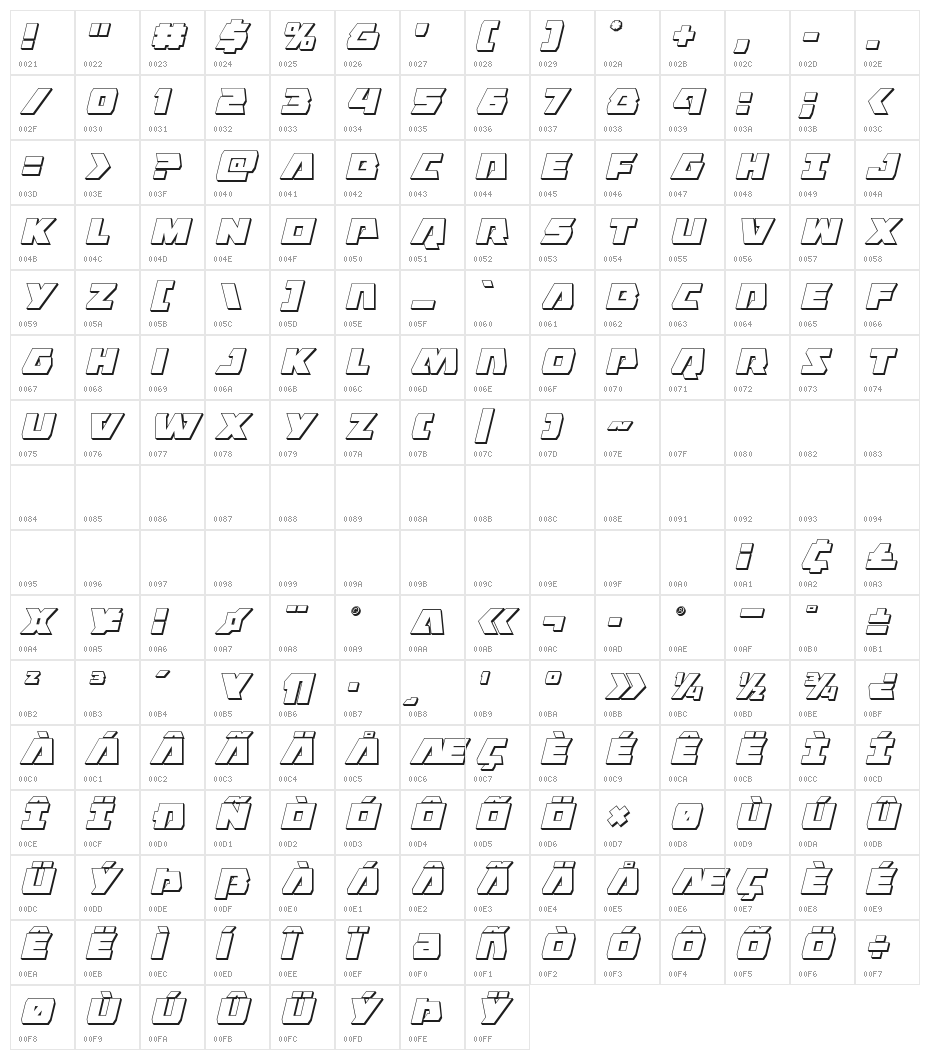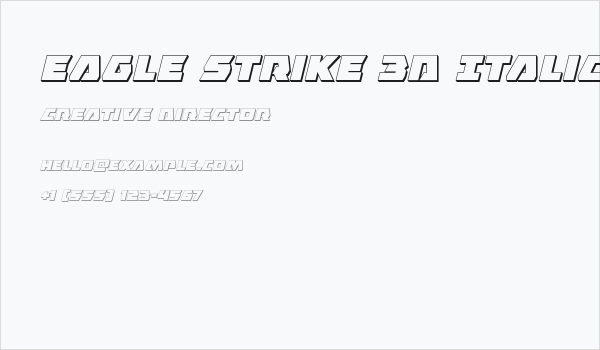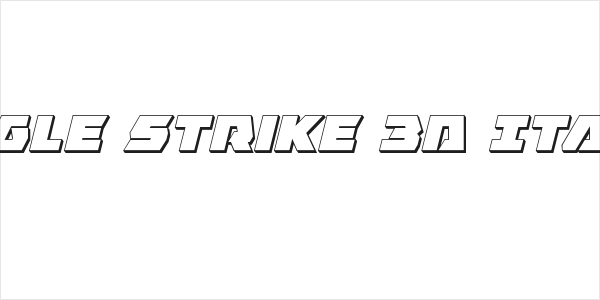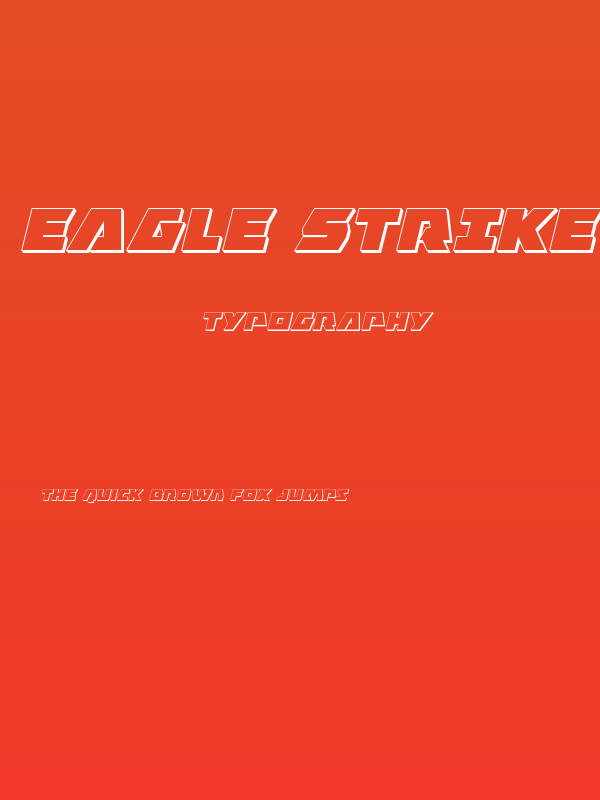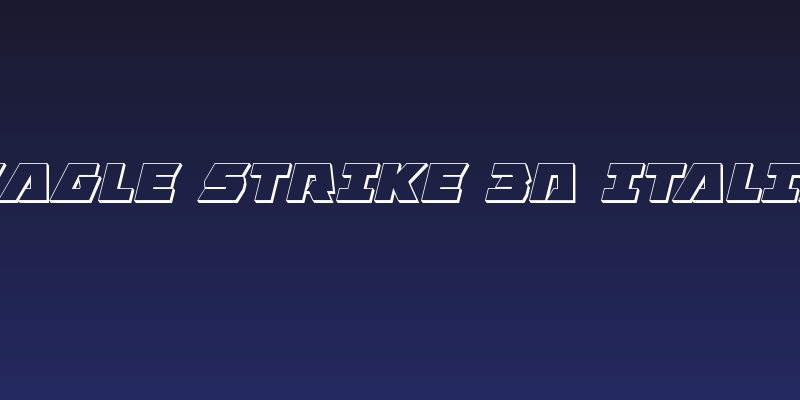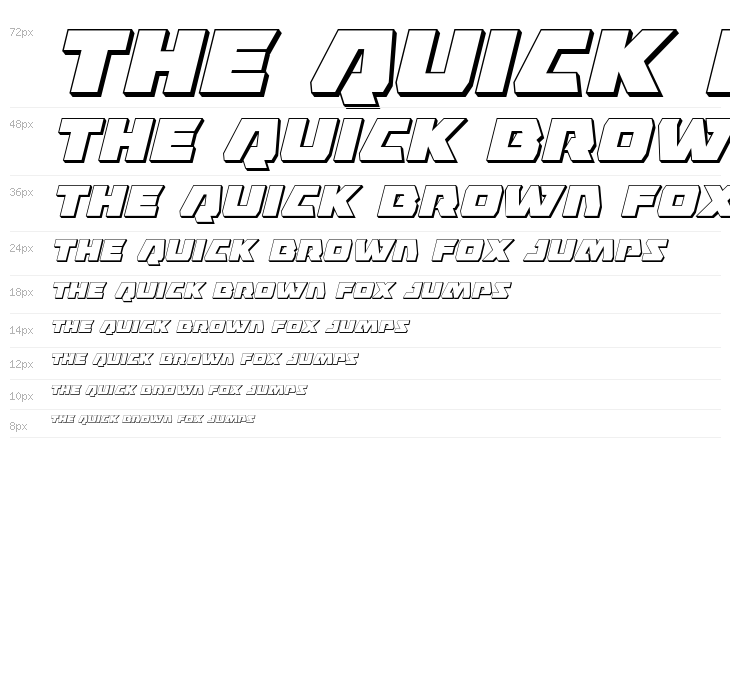
Eagle Strike 3D Italic Font
Eagle Strike 3D Italic Description
This font features a bold, three-dimensional design with a strong italic slant, giving it a dynamic and futuristic appearance. The characters are outlined, creating a striking contrast between the filled and unfilled spaces, which enhances the 3D effect. The geometric shapes and sharp angles contribute to its modern and edgy style, making it ideal for attention-grabbing headlines or logos. The uppercase and lowercase letters maintain a consistent style, with numerals and special characters following the same design principles.
| Proposed Projects | Ideal for sci-fi themed posters, video game titles, or tech company logos. |